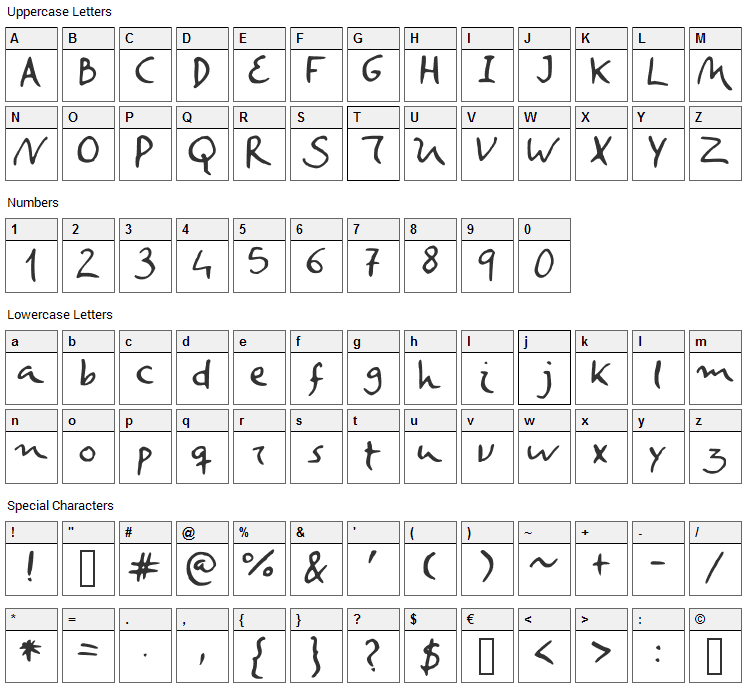
Versal Font
Font Name:Versal
Developer:Juan Monterroso
Category:Script > Handwritten
The typeface of a poet. Download it for your more personal texts ;)